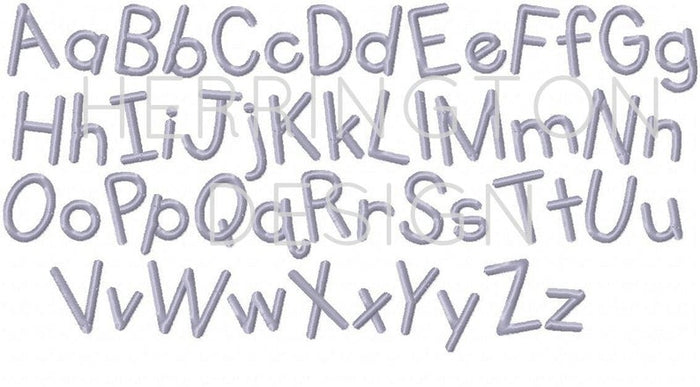
Peanut Butter Jelly Font Package
Discover the Peanut Butter Jelly Font Package, a single-color satin stitch font that captures the essence of playful, modern handwriting akin to a child's print. Ideal for crafters, this font includes uppercase and lowercase letters A-Z, along with numbers 0-9 in various sizes: .5", .75", 1", 1.5", and 2".